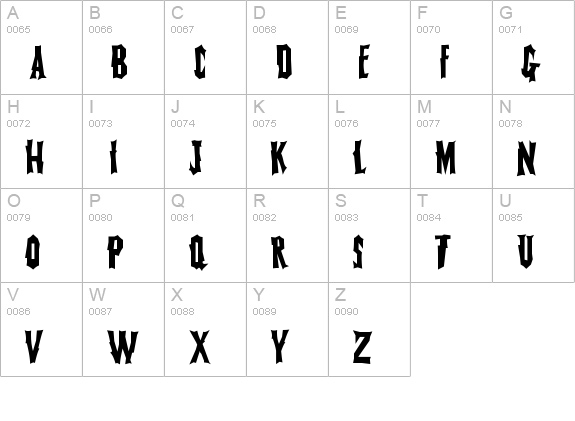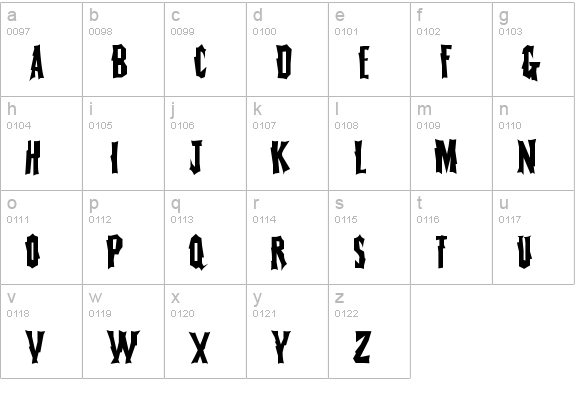
FearlessVampireKillers Font Details
Introducing FearlessVampireKillers font, a striking and edgy typeface that exudes a sense of mystery and daring. With its sharp angles and bold strokes, this font is perfect for any project that requires a touch of the unconventional and fearless spirit. Whether you're designing a poster, logo, or website, FearlessVampireKillers font will make a bold statement and capture attention. This unique font is freely available to download at FontsMarket.com, allowing you to unleash your creativity without any constraints. Take your designs to the next level with FearlessVampireKillers font and make a lasting impression on your audience. With its combination of elegance and boldness, this font is sure to stand out and leave a memorable impact. Download it today and let your imagination run wild!